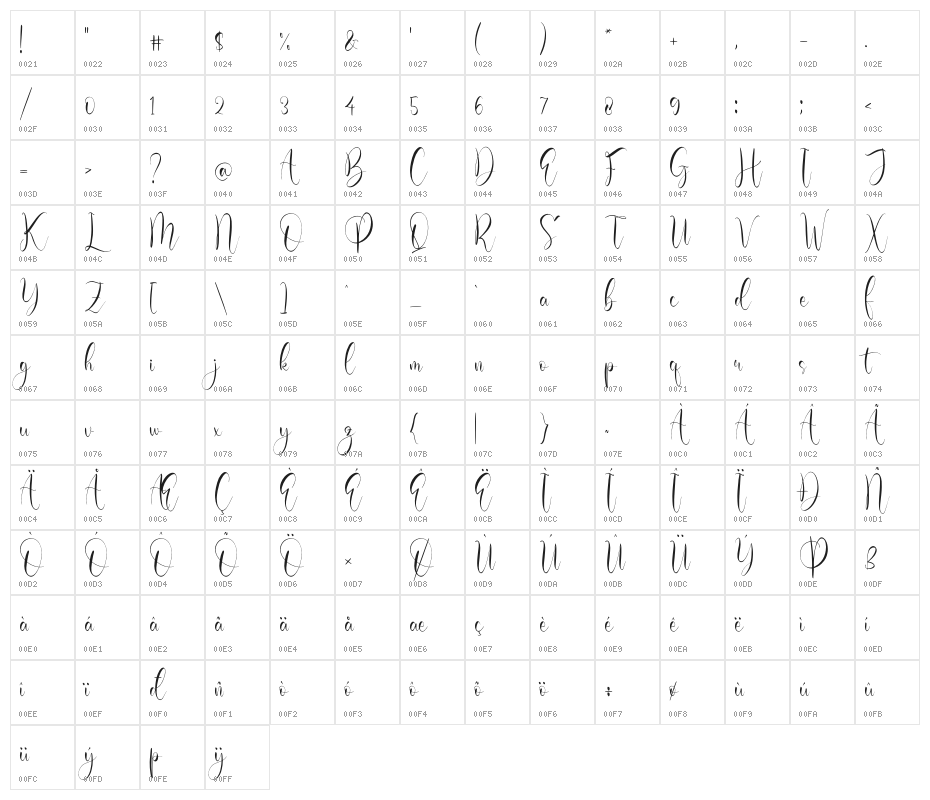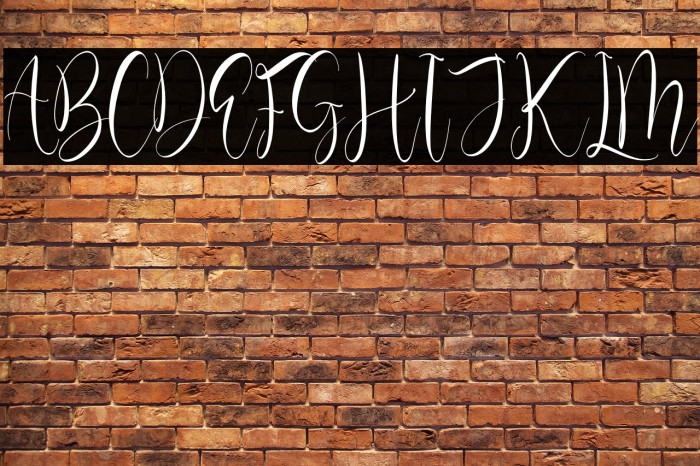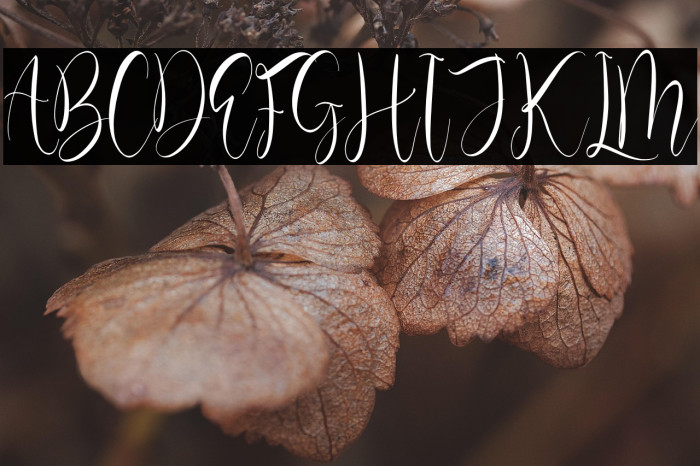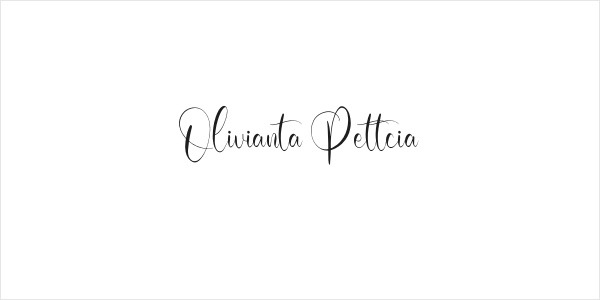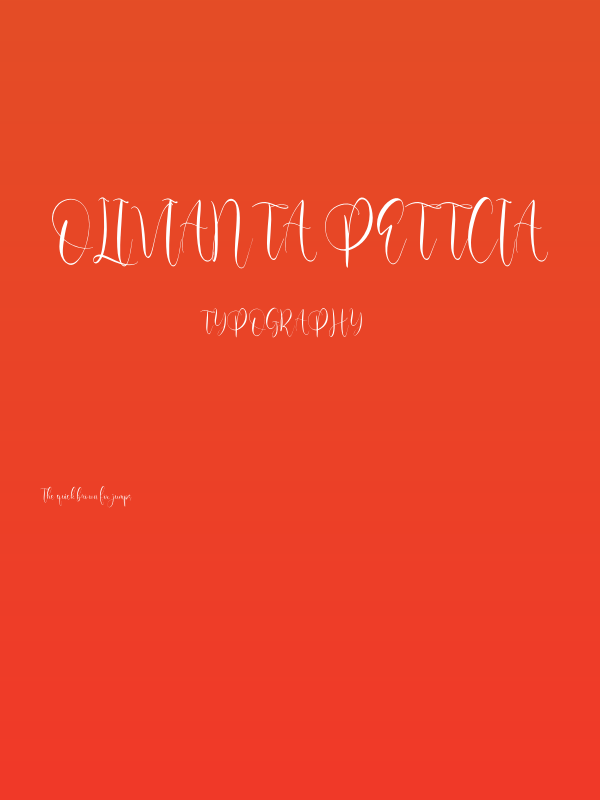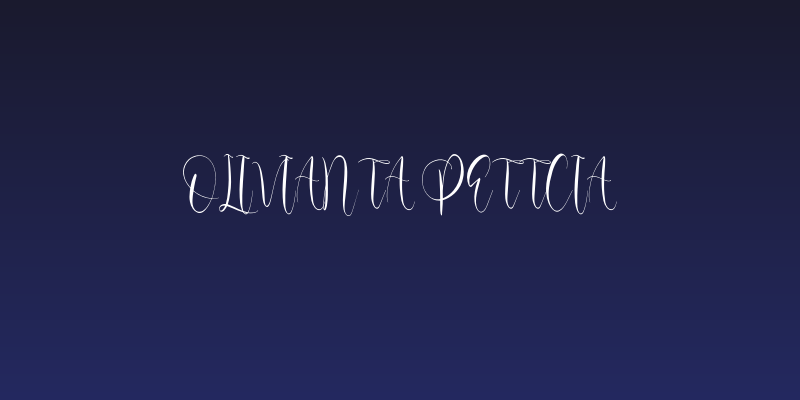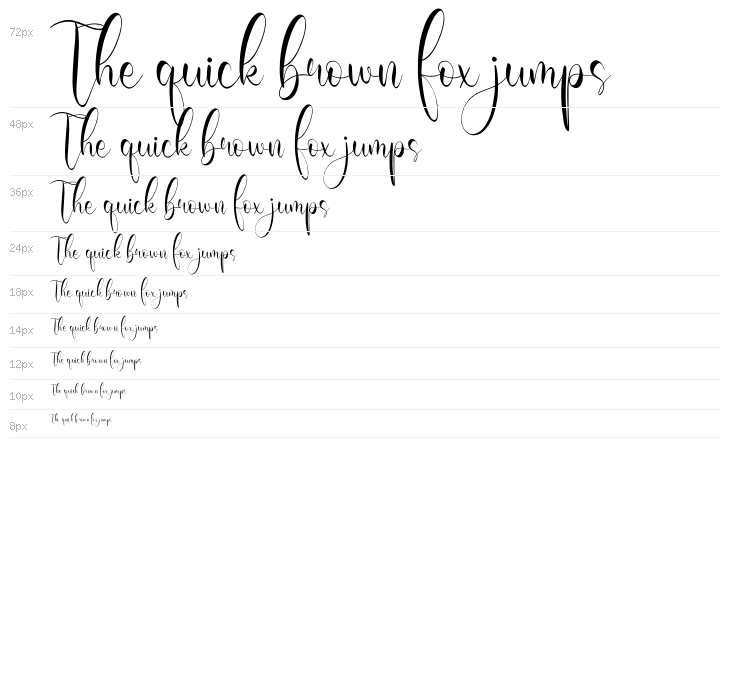
Olivianta Pettcia Font
Olivianta Pettcia Description
This font features an elegant and flowing script style, characterized by its graceful curves and loops. The uppercase letters are tall and slender, with a distinct calligraphic flair, while the lowercase letters maintain a consistent flow with delicate connections. The numerals are designed to match the overall aesthetic, offering a cohesive look. Special characters are included, adding versatility to the font. The strokes vary in thickness, providing a dynamic contrast that enhances readability and visual appeal. This font exudes a sense of sophistication and charm, making it suitable for a variety of creative projects.